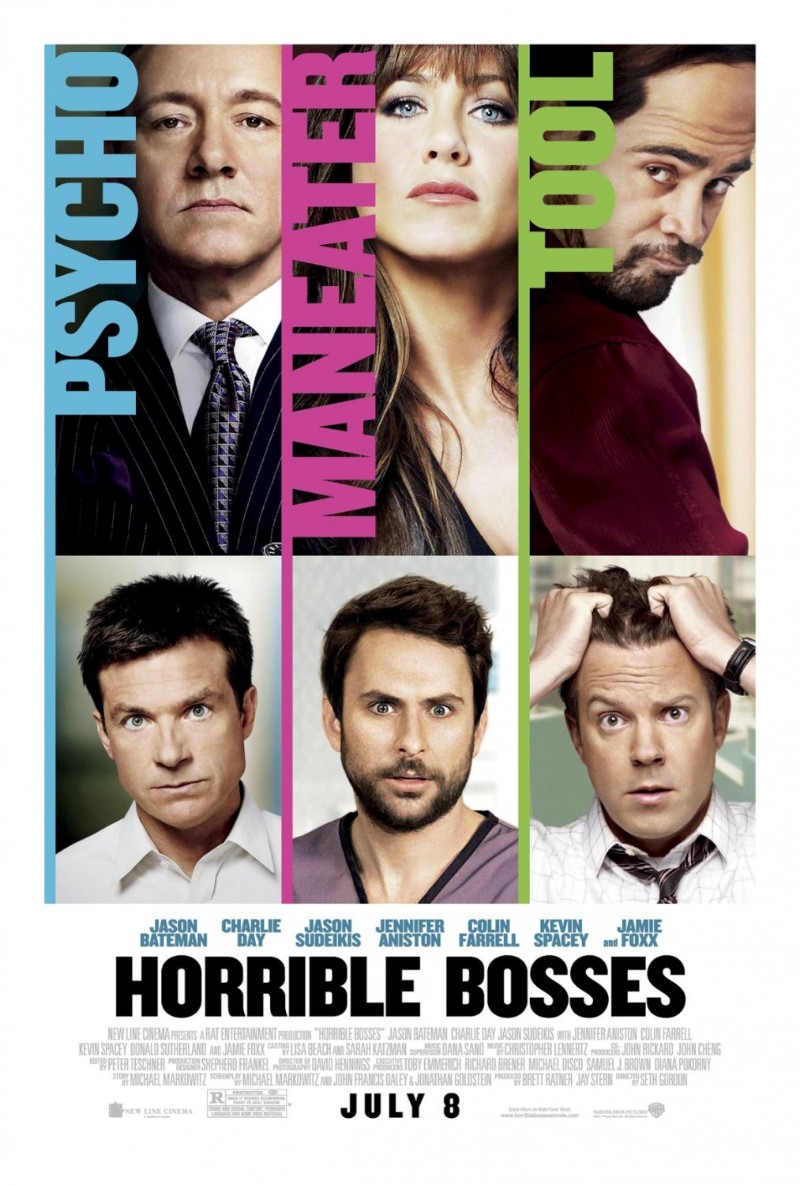
Horrible Bosses Font
ComedyHorrible Bosses is a 2011 American dark comedy film directed by Seth Gordon. It stars Jason Bateman, Charlie Day, and Jason Sudeikis as friends who decide to murder each other's bosses, played by Kevin Spacey, Colin Farrell, and Jennifer Aniston.
The film Horrible Bosses title on the poster is set in a sans serif called Knockout 69 Full LightWeight. The Knockout typeface, created by Jonathan Hoefler and Tobias Frere-Jones in 1994, is a versatile font that comes in multiple widths.